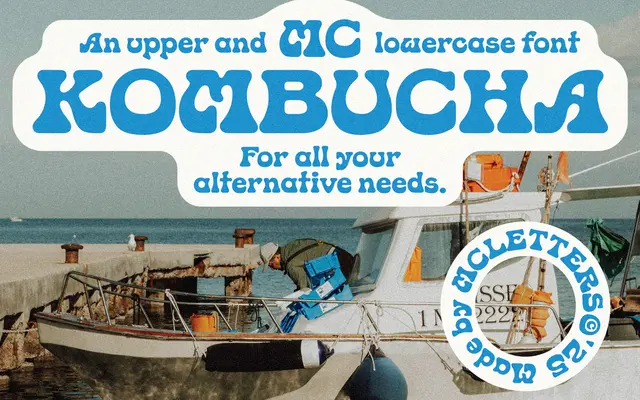
MC Kombucha
A casual display script aimed at craft beverage and lifestyle branding contexts.
MC Kombucha is a display typeface from McLetters with the informal, hand-drawn character associated with craft drink labels and artisan packaging. Licensing is tiered by company size and intended use, covering commercial and app applications. The page provides minimal technical detail beyond a basic interactive preview.
The name and preview suggest a casual, hand-drawn display style typical of craft beverage branding, placing it in display script territory.